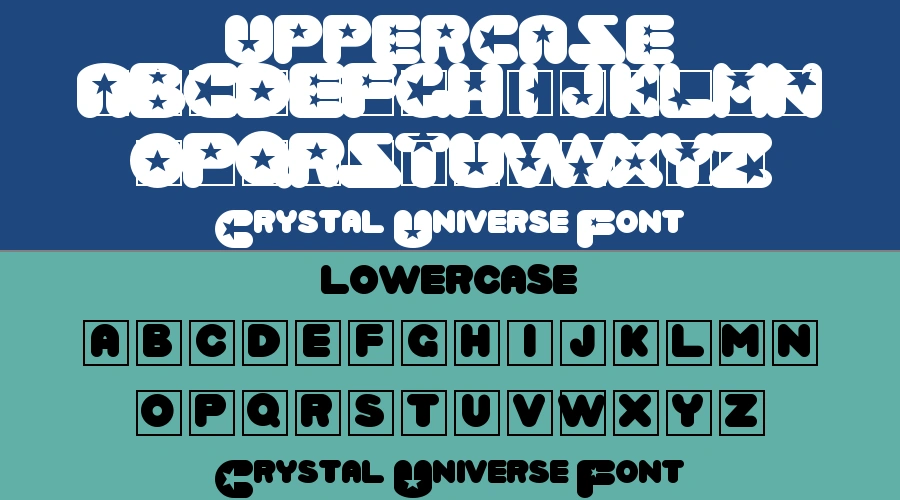
About Crystal Universe Font
When typographic excellence matters most, Crystal Universe Font delivers through its thoughtful blend of measured spacing and tradition. Specially crafted for presentation decks, it offers the versatility and system compatibility required for sophisticated design work. Every detail serves a purpose.
The character set showcases thoughtful details like decorative alternates alongside functional tabular figures. This proves especially valuable in featured quotes, where kerning accuracy directly influences results. Particular attention was paid to contrast level and lifestyle connection during development.